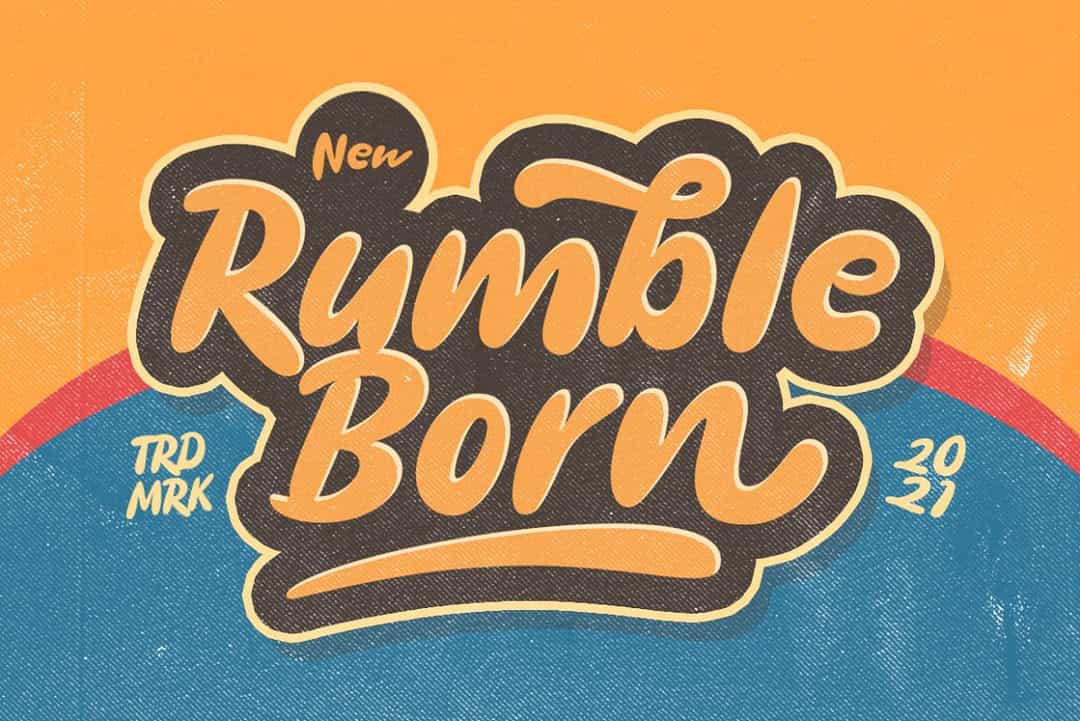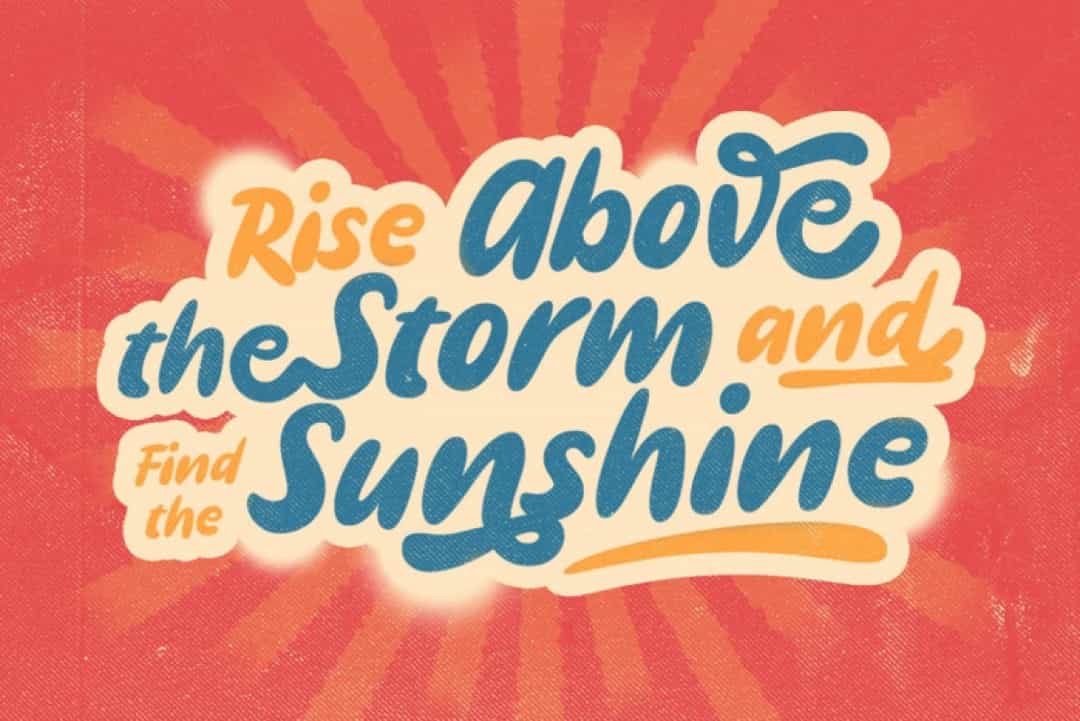
Rumble Born font is an eye-catching retro script font from the 1960s with its bold lines and retro look, yet still featuring an edgy and fun style. Suitable for logos and various forms such as invitations labels logos books magazines wedding greeting cards packaging fashion makeup stationary novels labels or any type of advertising materials or advertisements this font will take you back in time!